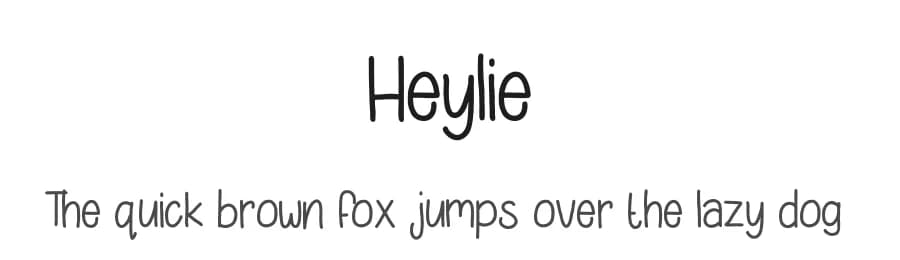
About Heylie Font
Heylie Font is a script font that shines as a display or heading face. Pair it with a clean sans-serif or serif font for body text β the contrast creates a clear hierarchy while the two styles stay balanced and easy to read.
Heylie Font